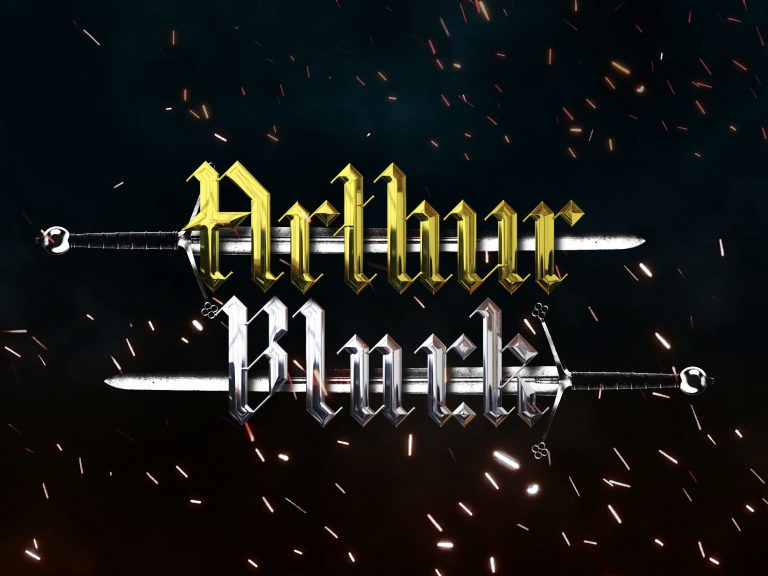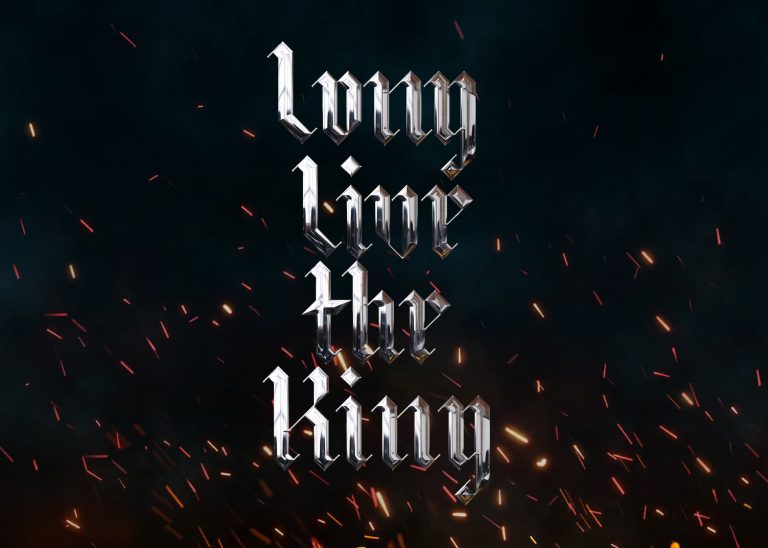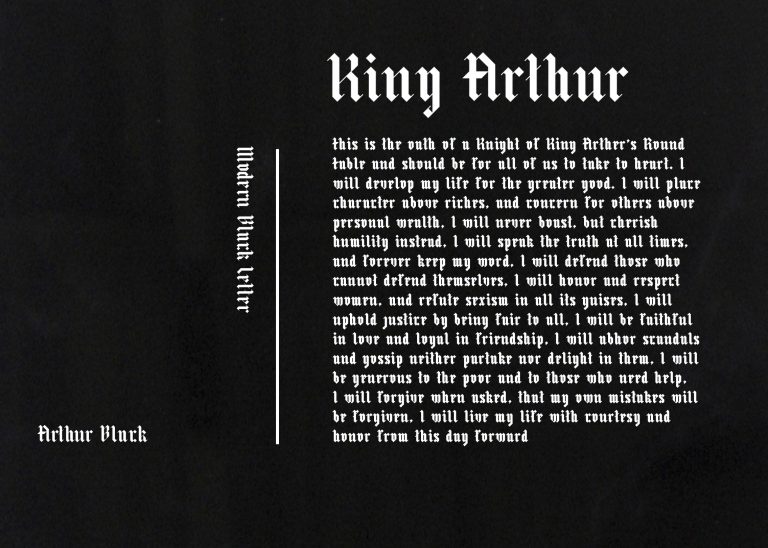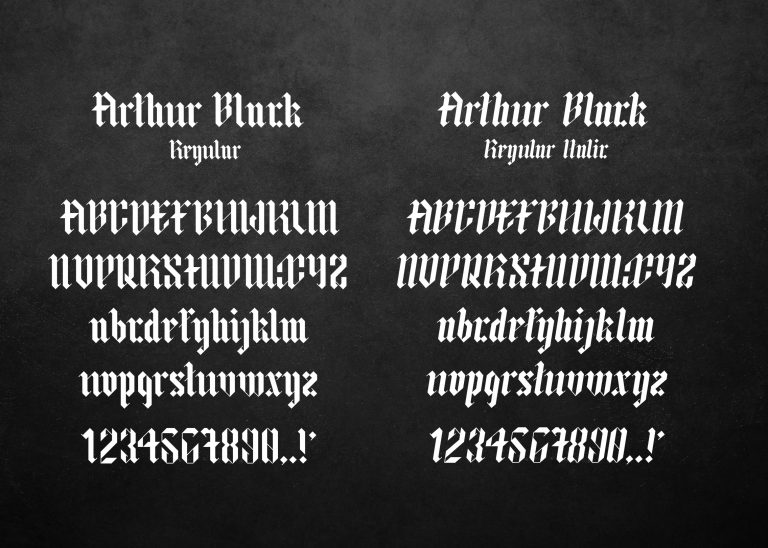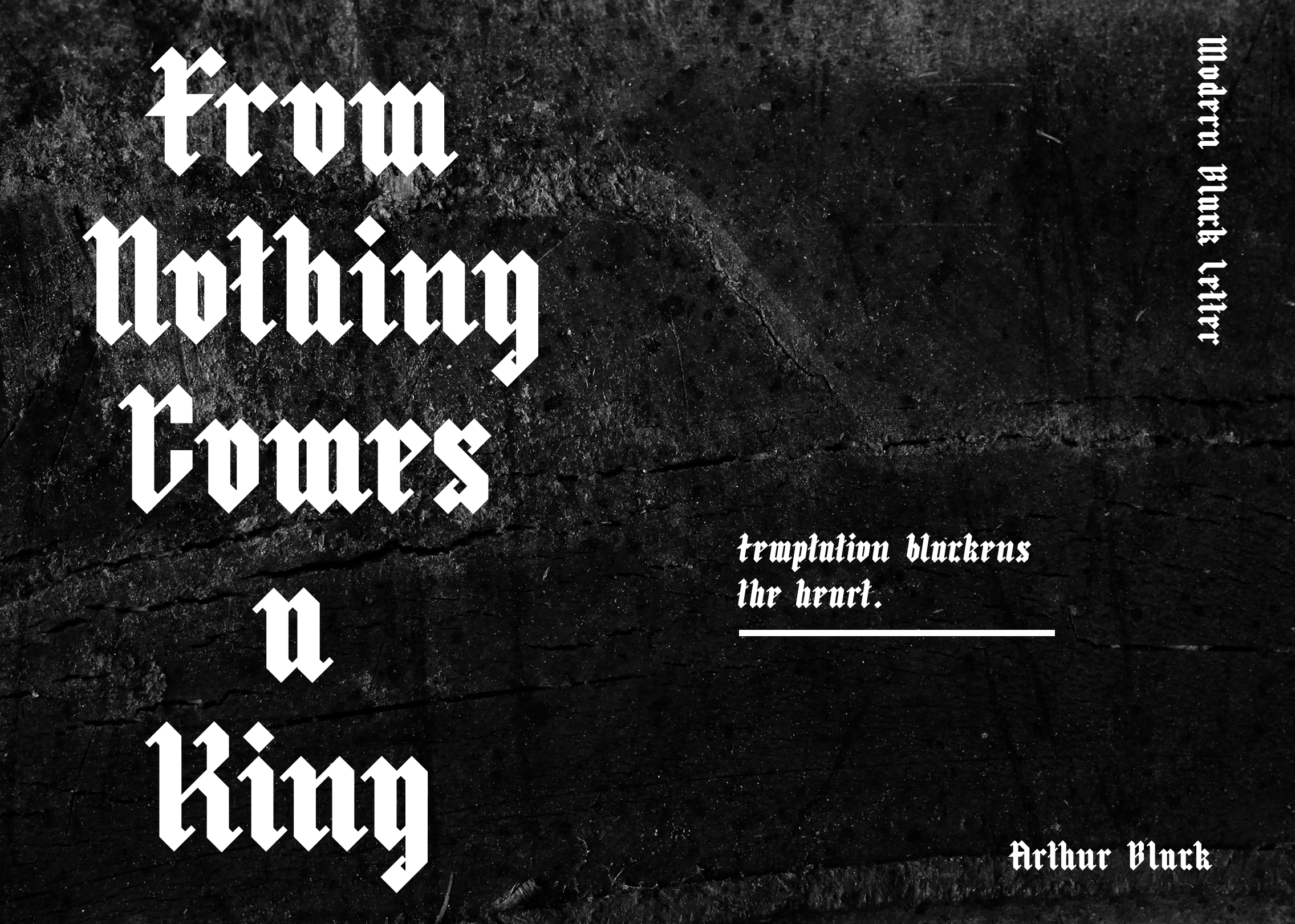
Arthur Black: Modern Black Letter
Arthur Black is a true power blackletter font. The font is designed to make your work to look and feel like a king. A classic look letters with a modern touch help to amplify your creativity. With this font, you can showcase your work in multiple ways. Whichever ways you choose, you will always come in first.